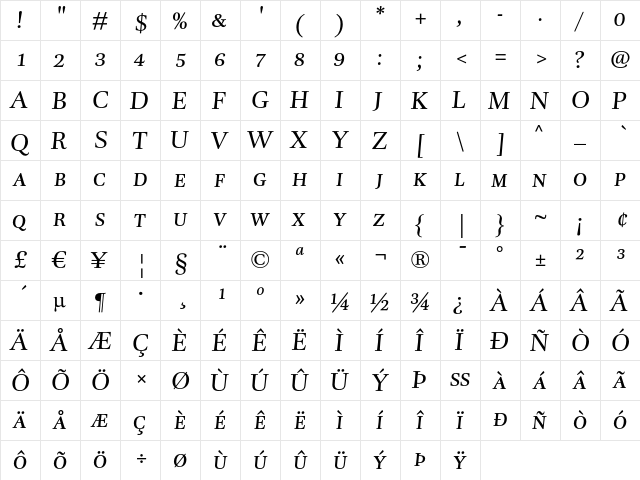
DTLUnicoT CapsItalic
Design Context for DTLUnicoT Typeface
DTLUnicoT takes a measured approach to typography — its balanced proportions and neutral character make it a reliable workhorse for both digital and print work. The slanted form adds forward momentum and visual energy.
Pro Tip: Use DTLUnicoT for emphasis, pull quotes, and subheadings where its slanted energy can add rhythm to the layout.